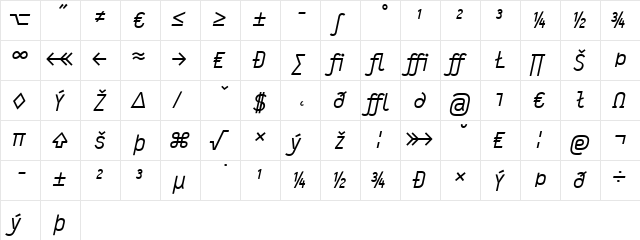
Typestar Italic
Design Context for Typestar Typeface
Typestar is a composed and adaptable typeface that performs quietly and consistently across a wide range of design contexts. The dynamic lean of this cut emphasises speed and emphasis in any layout.
Pro Tip: Try Typestar for annotation and caption copy alongside an upright companion — the contrast in angle creates a dynamic but ordered typographic system.